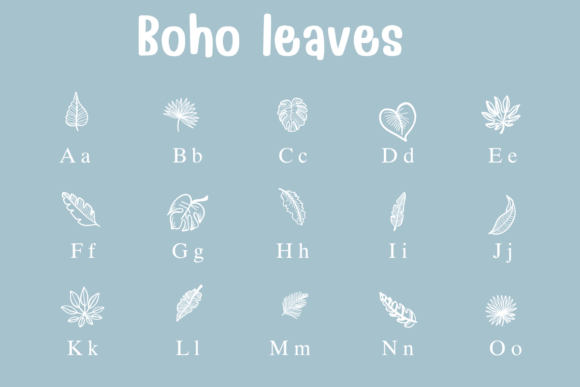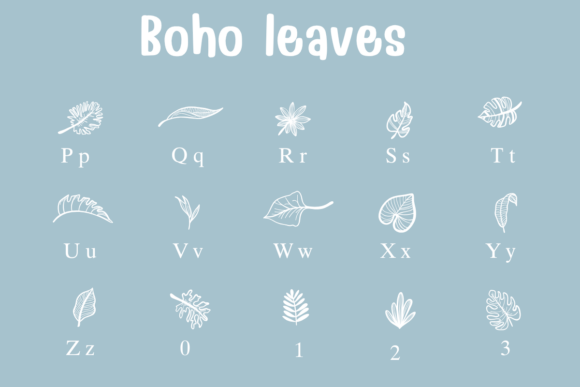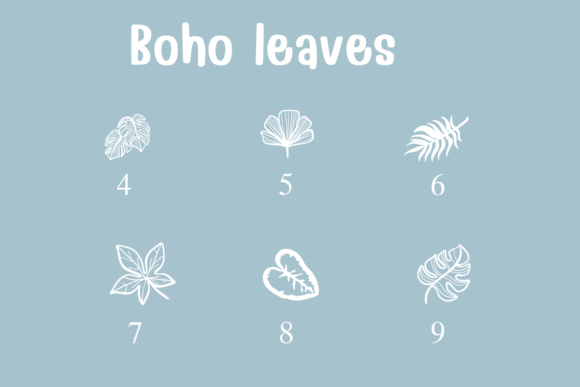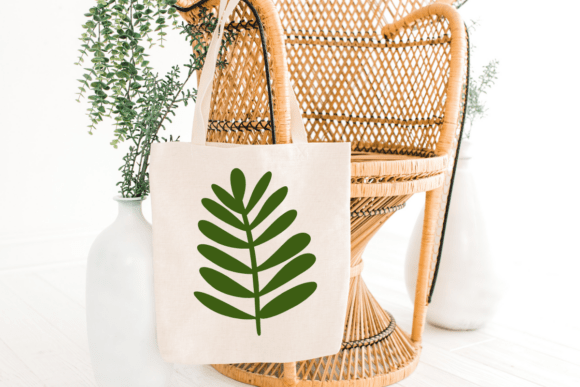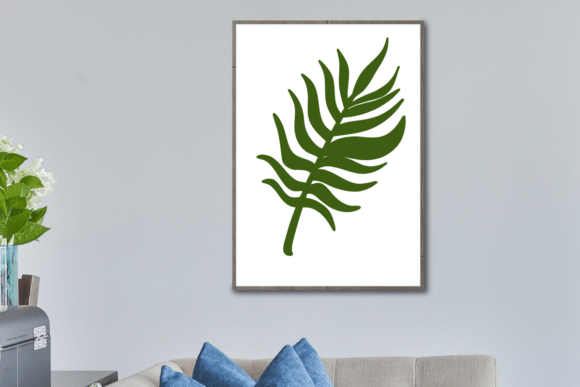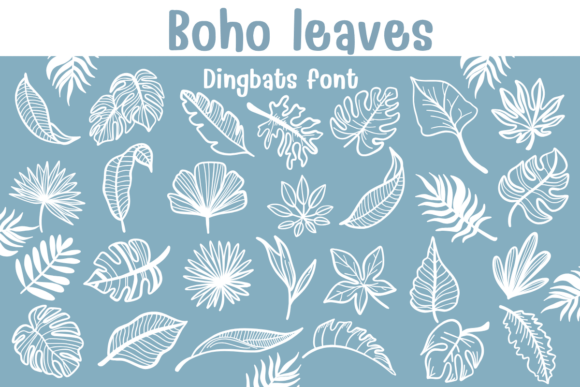
The Boho Leaves Font: A Sweet and Friendly Dingbat Delight
I’ll never forget the time I was working on a whimsical garden-themed project for a client, and I just couldn’t find the perfect font to bring it all together. The design needed something fresh, playful, and earthy, but everything I tried seemed to fall flat. That’s when I stumbled upon the Boho Leaves font, and it was like a breath of fresh air! 🌿
This sweet and friendly dingbats font has a natural and unique style that makes it incredibly fitting for a wide range of designs. The only limit is your imagination! In this article, we’ll dive into the world of Boho Leaves, exploring its features, uses, and some helpful tips and tricks.
- ✨ Unique and natural style that’s perfect for bohemian-inspired designs
- ✅ Extensive glyphs and OpenType features for endless creative possibilities
- ✅ Easy to use and pairs well with a variety of font combinations
- ✨ Highly versatile and suitable for various design projects, from branding to crafting
While Boho Leaves is an amazing font, there are a few things to keep in mind:
- ⚠️ Some characters may appear a bit delicate or thin, so be mindful of font size and color choices
- 🤔 Limited availability of uppercase letters, but this can also add to the font’s charm
Boho Leaves was inspired by the beauty of nature and the freedom of bohemian style. The designer aimed to create a font that would evoke a sense of whimsy and playfulness, while still being elegant and refined.
Q: What type of designs is Boho Leaves best suited for?
A: Boho Leaves is incredibly versatile and can be used for a wide range of designs, from branding and logos to crafting and DIY projects.